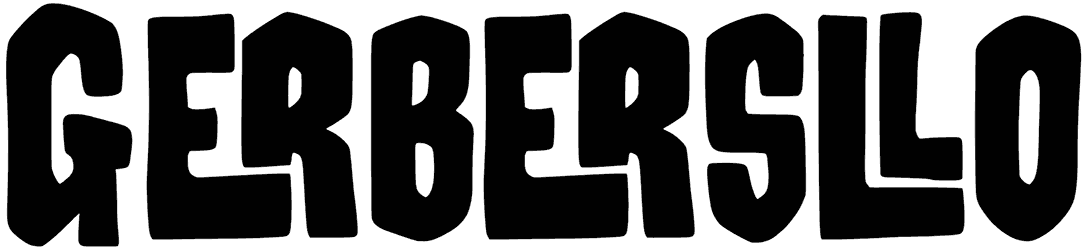
Gerbersllo Font
If you are looking for a font that allows you to create custom-looking text, Gerbersllo is for you. Thanks to the large letters that can be combined in different ways, this cartoon font provides an almost endless way of implementing ideas that will create a unique look in your texts.
The lack of lowercase letters has not reduced the ability of this fancy font for adorning branding, designing creative posters, and popular animations.